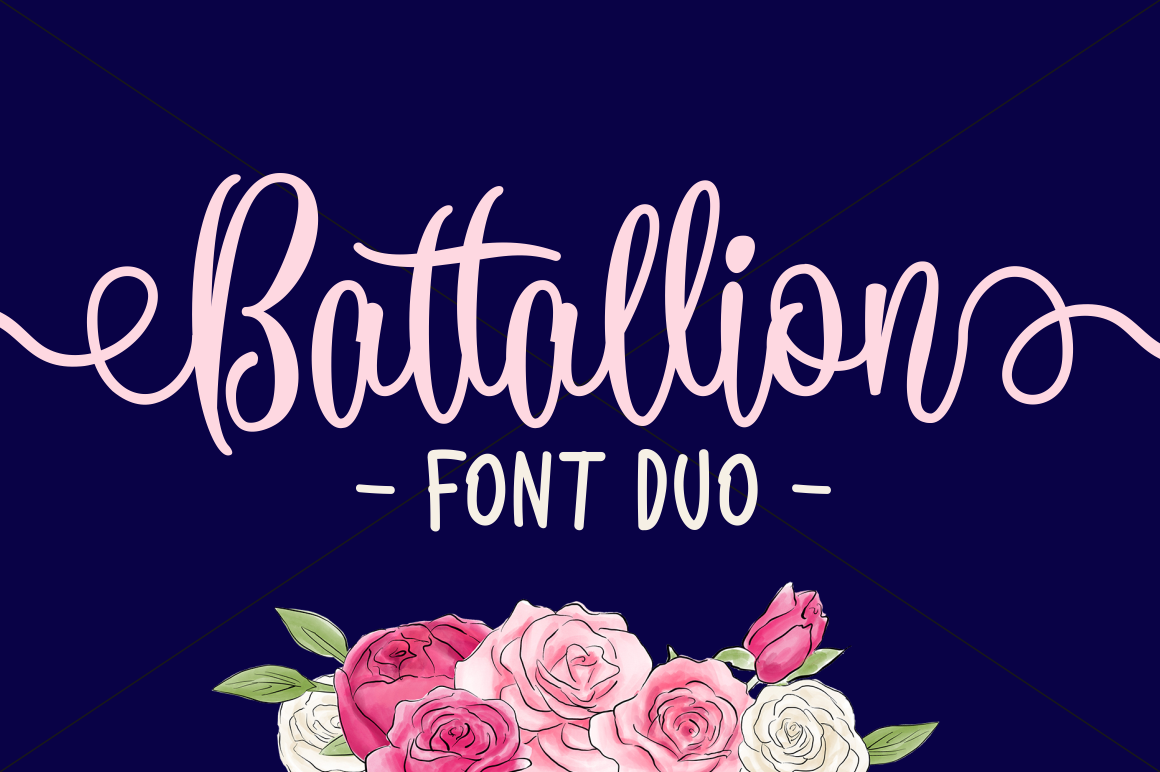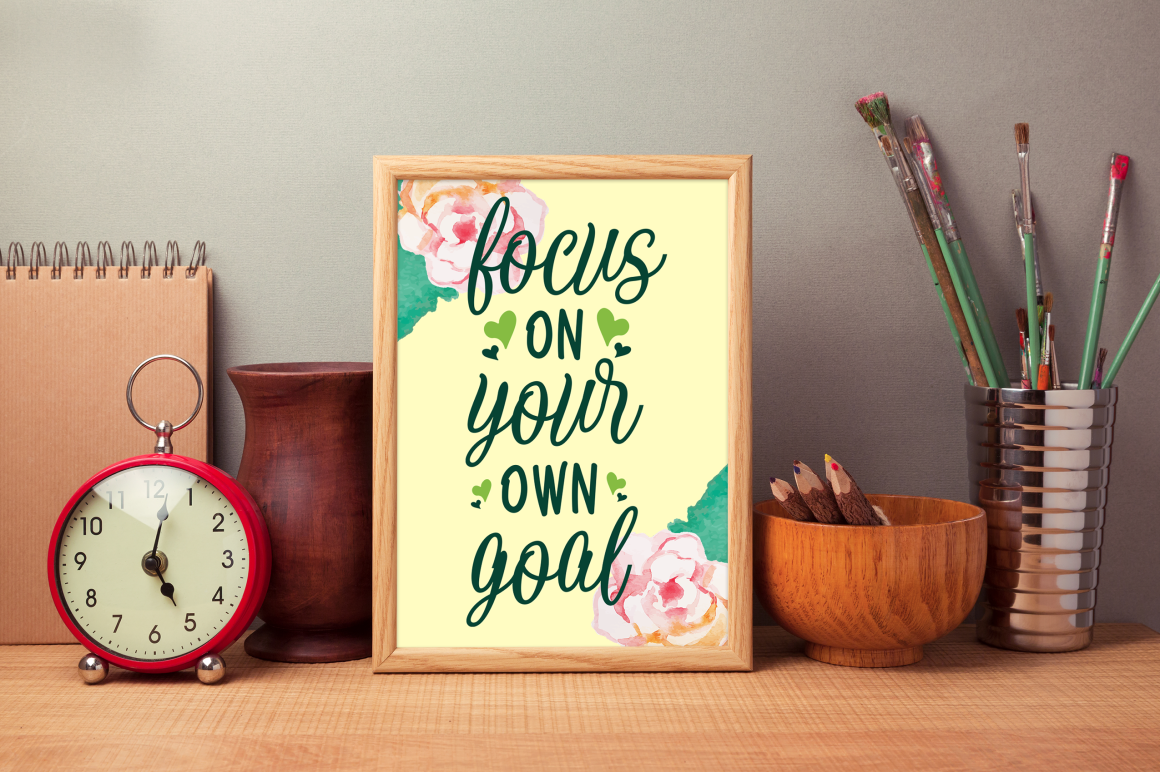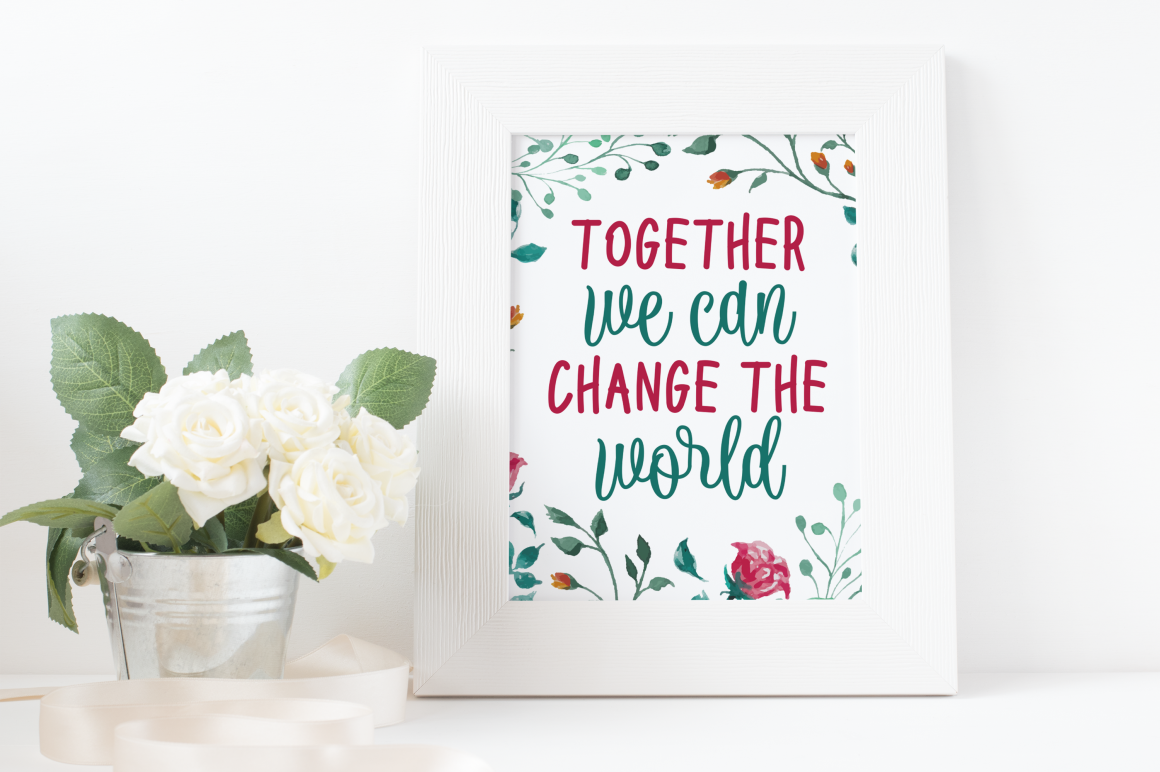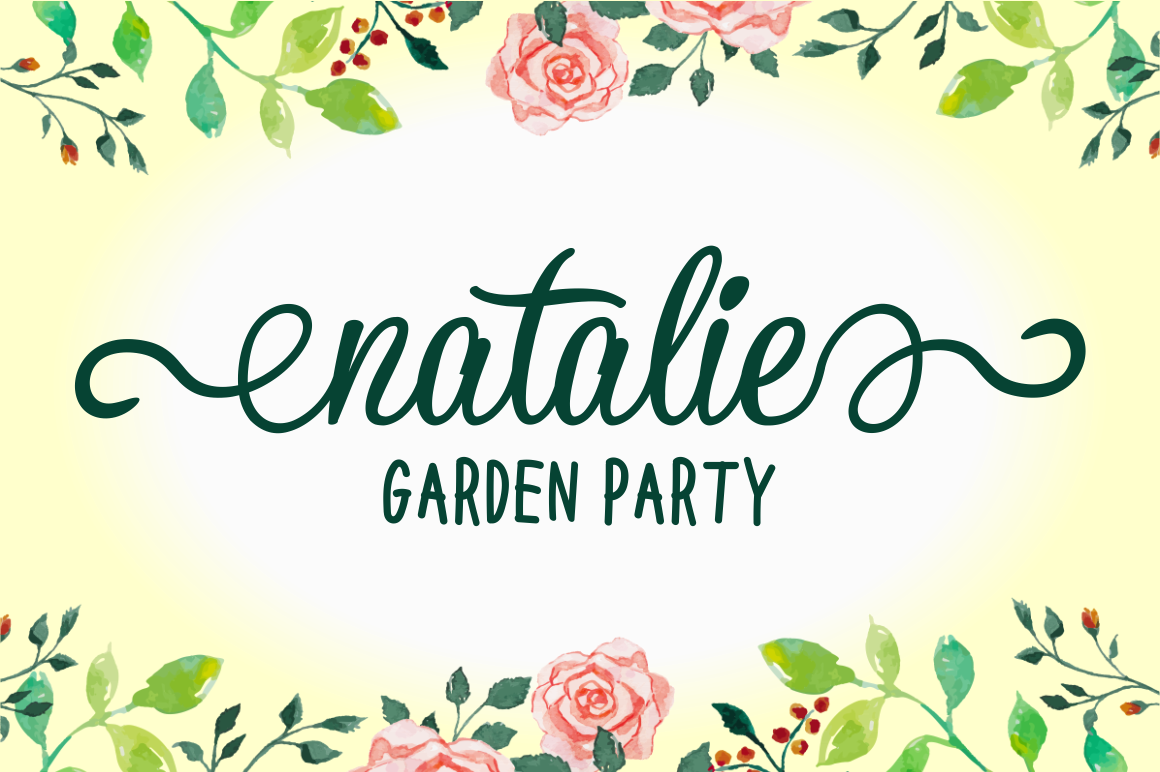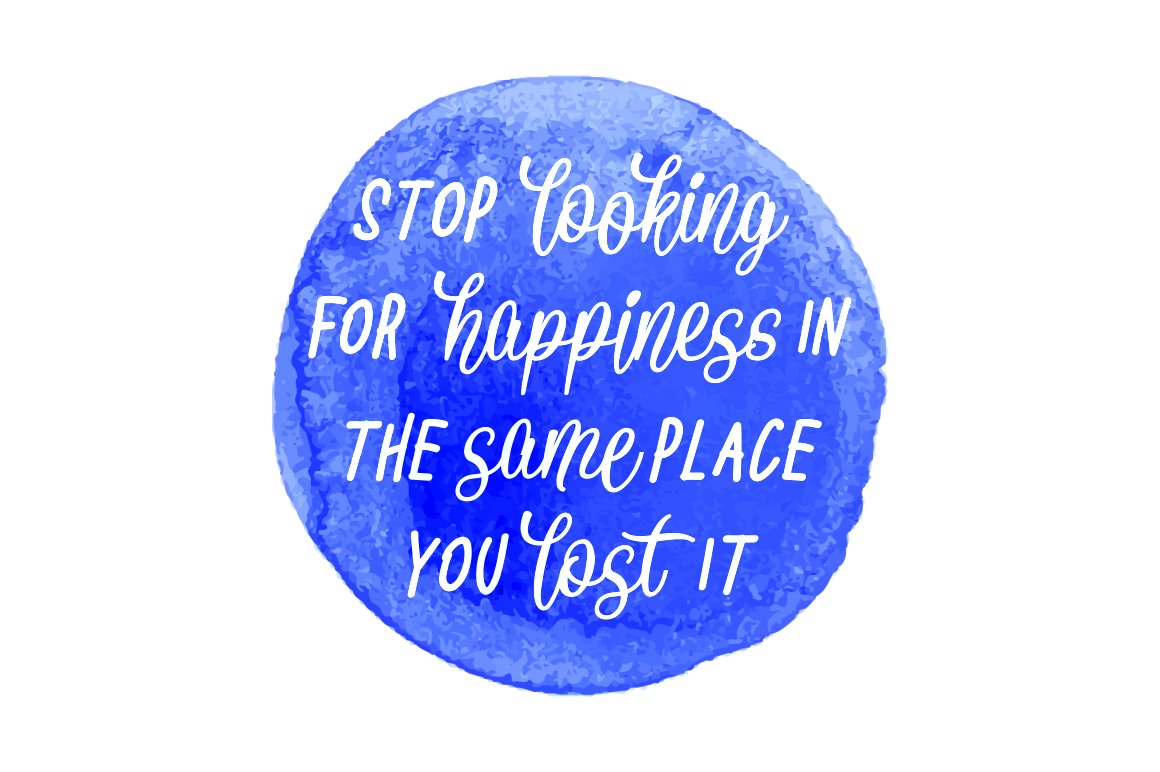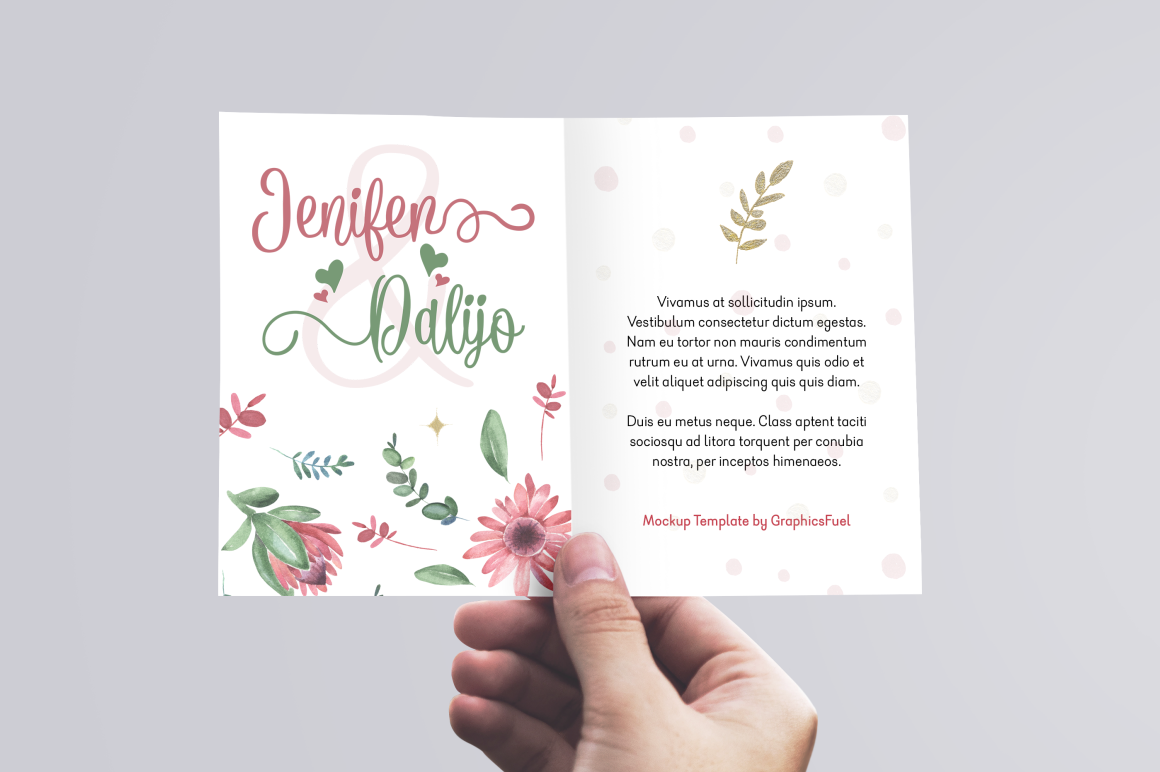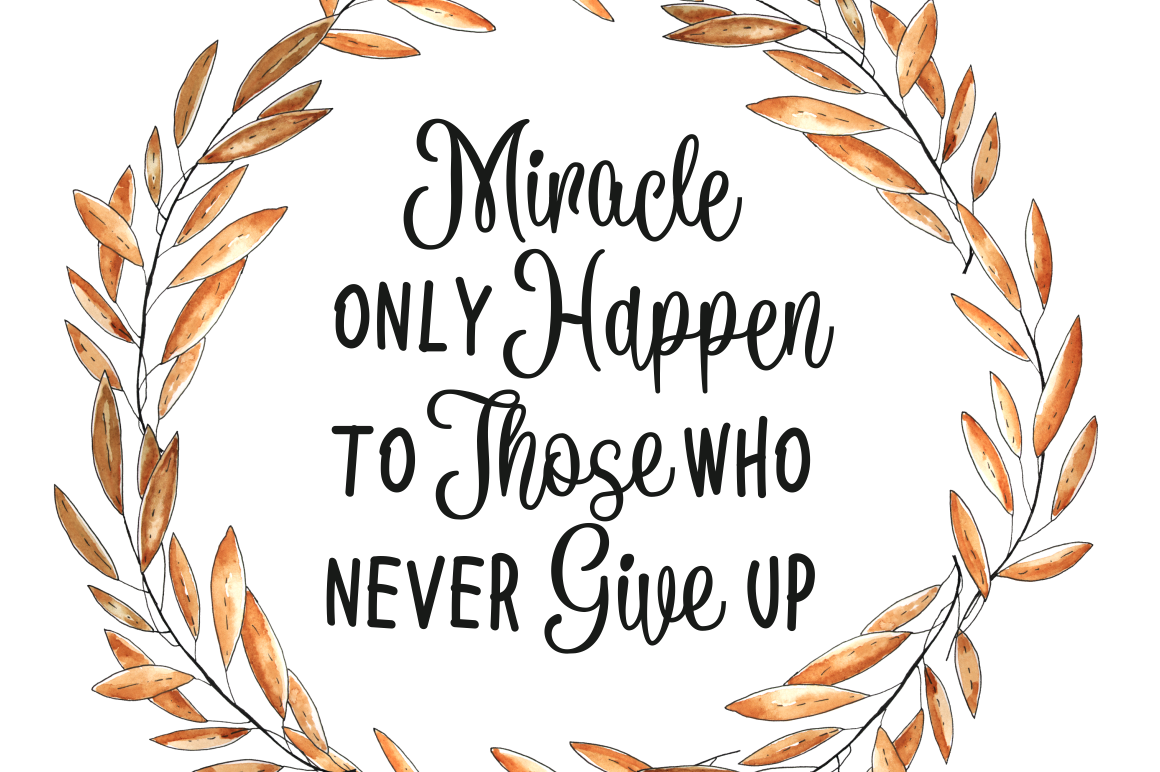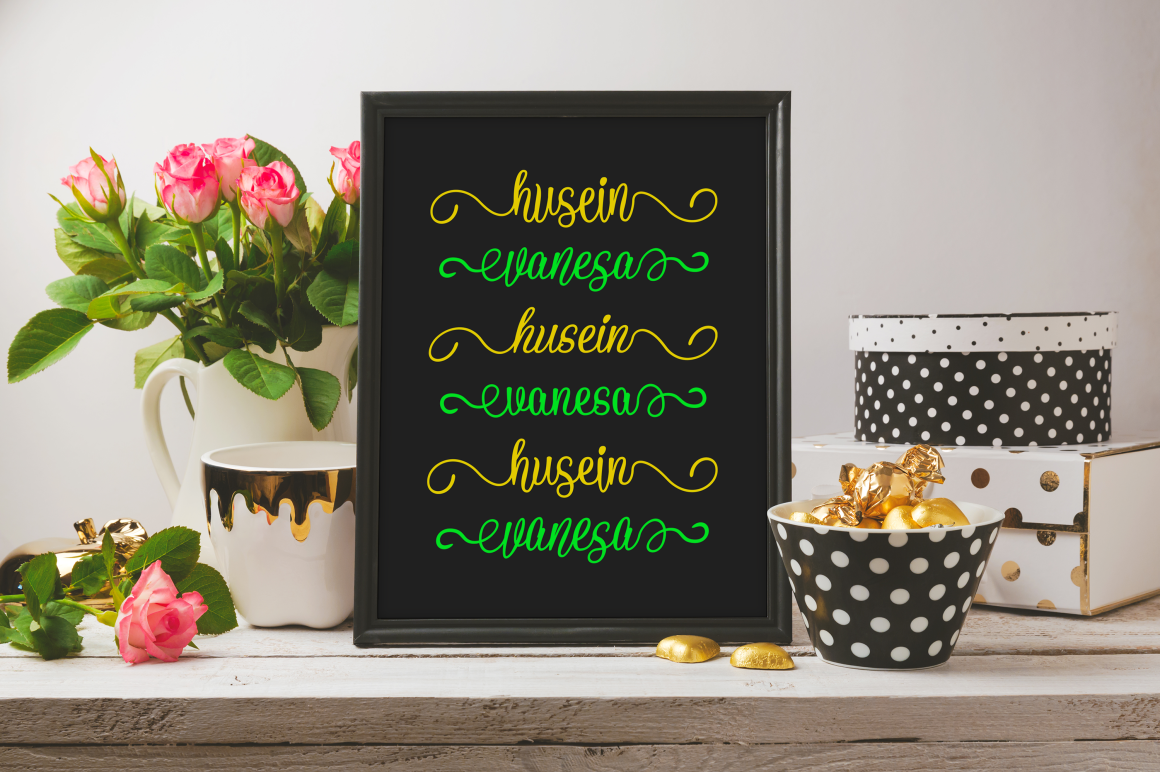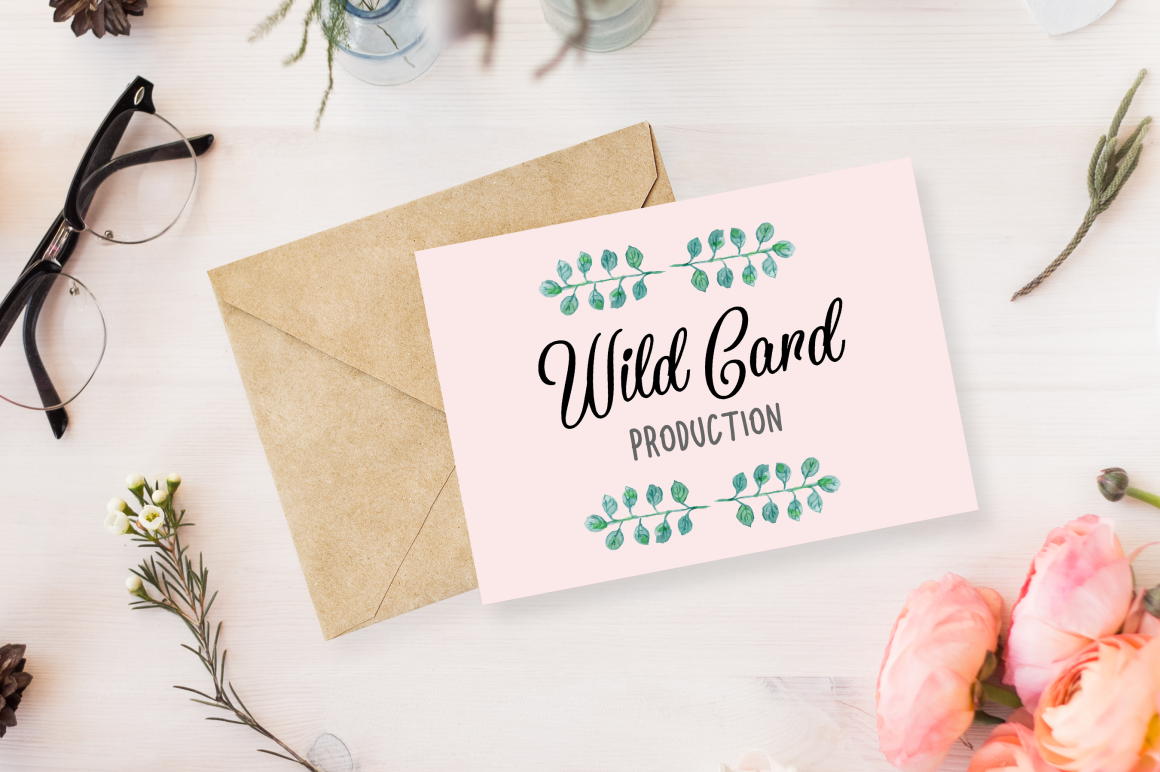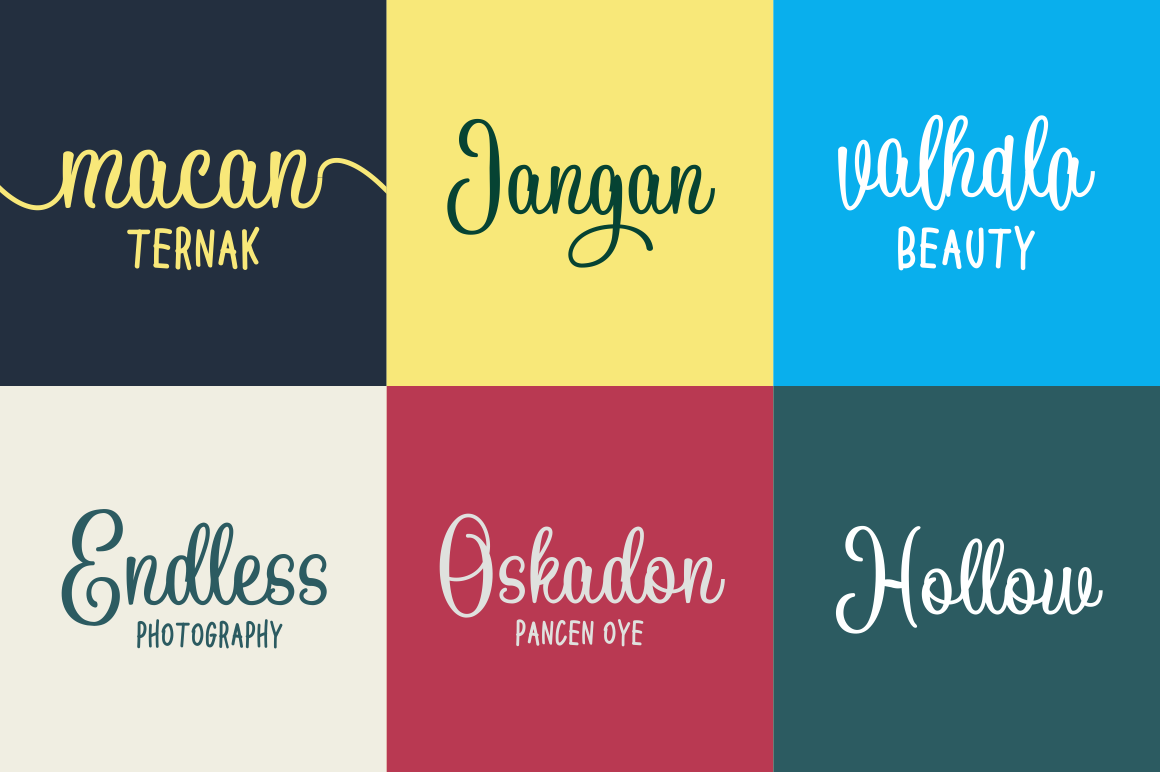
Battallion Font
About Battallion Font
Battallion is a mini font family. It’s the perfect combination between classic calligraphy and handwritten and allows for adding a personal touch to your designs.